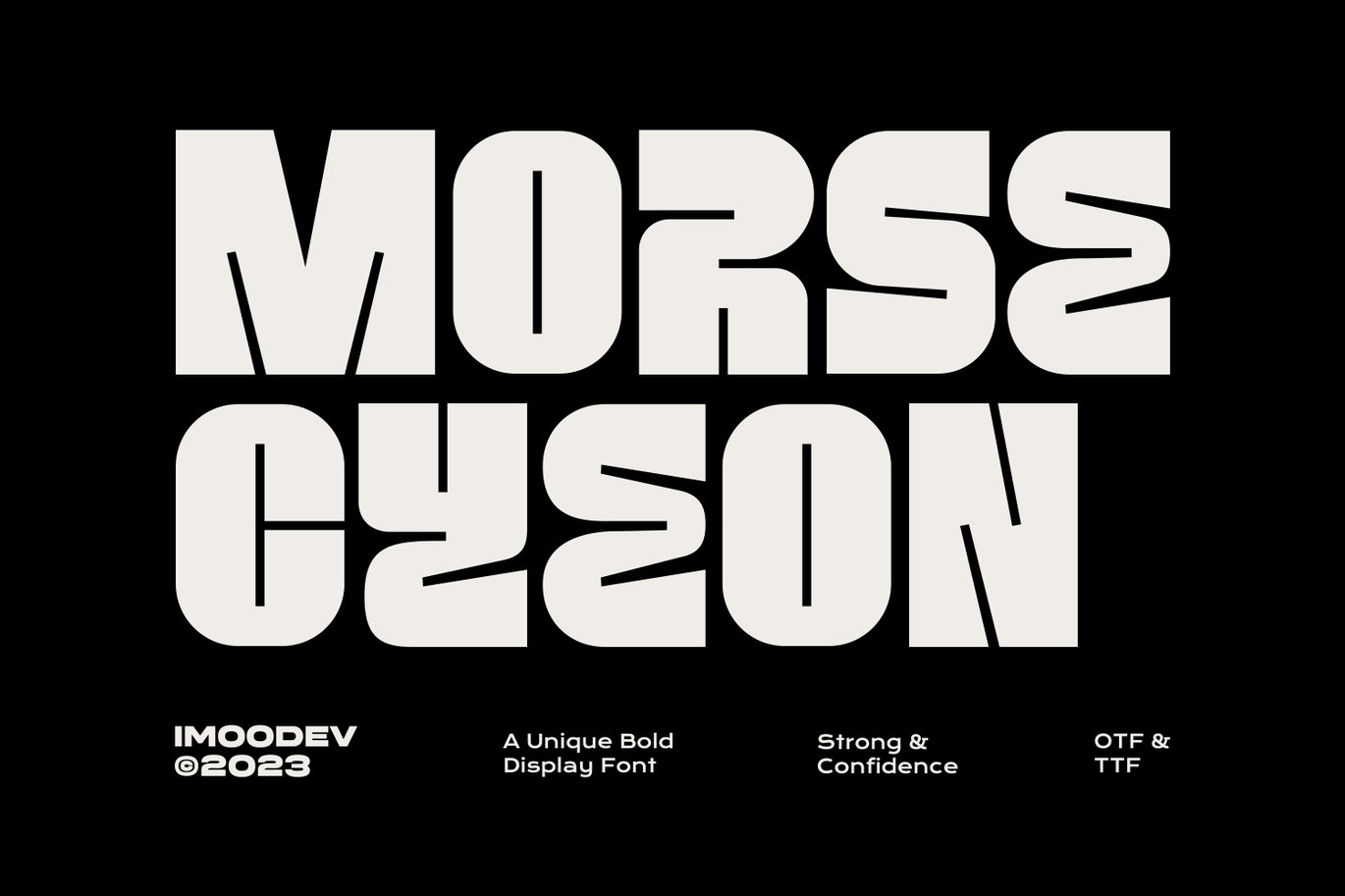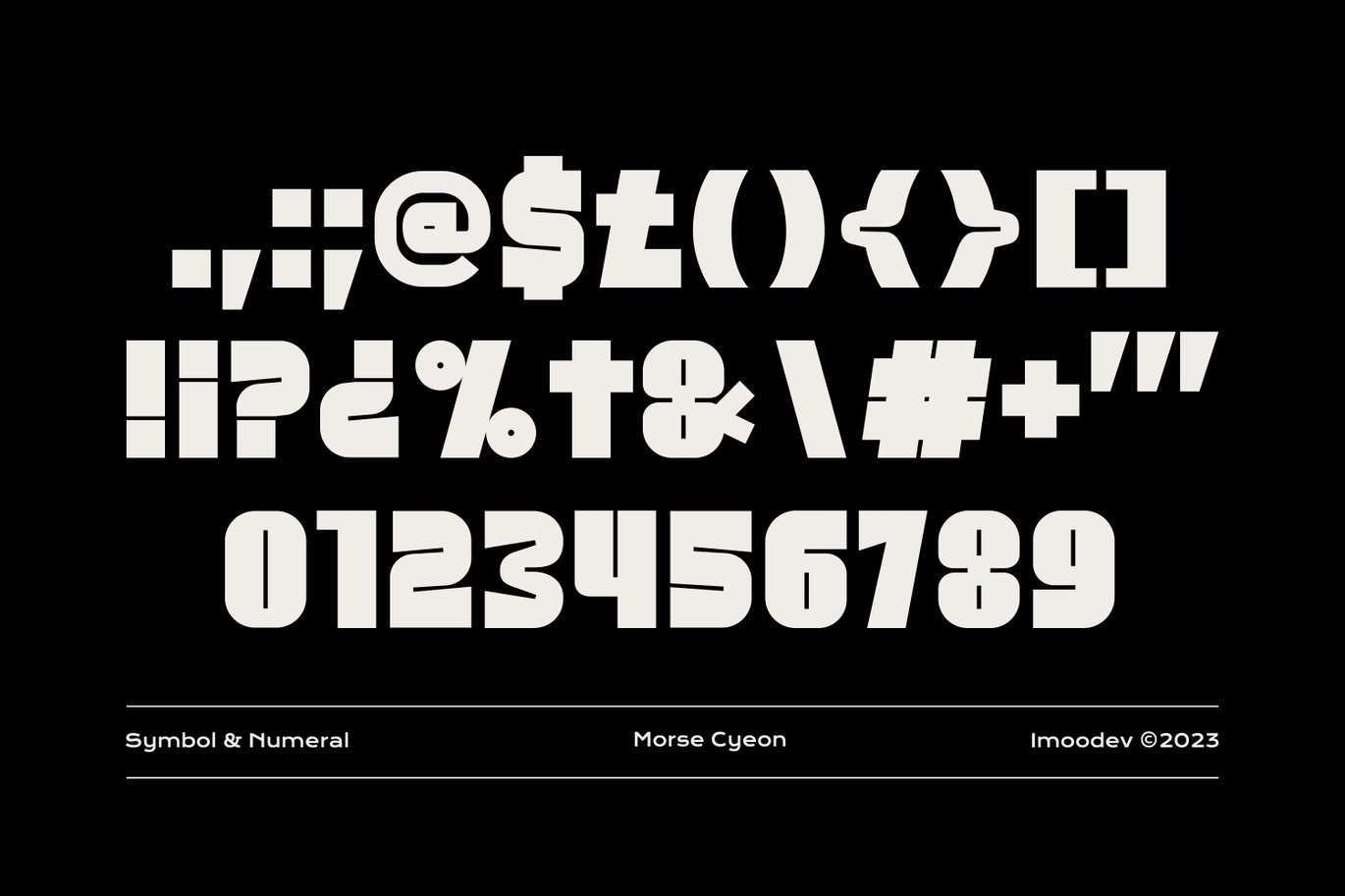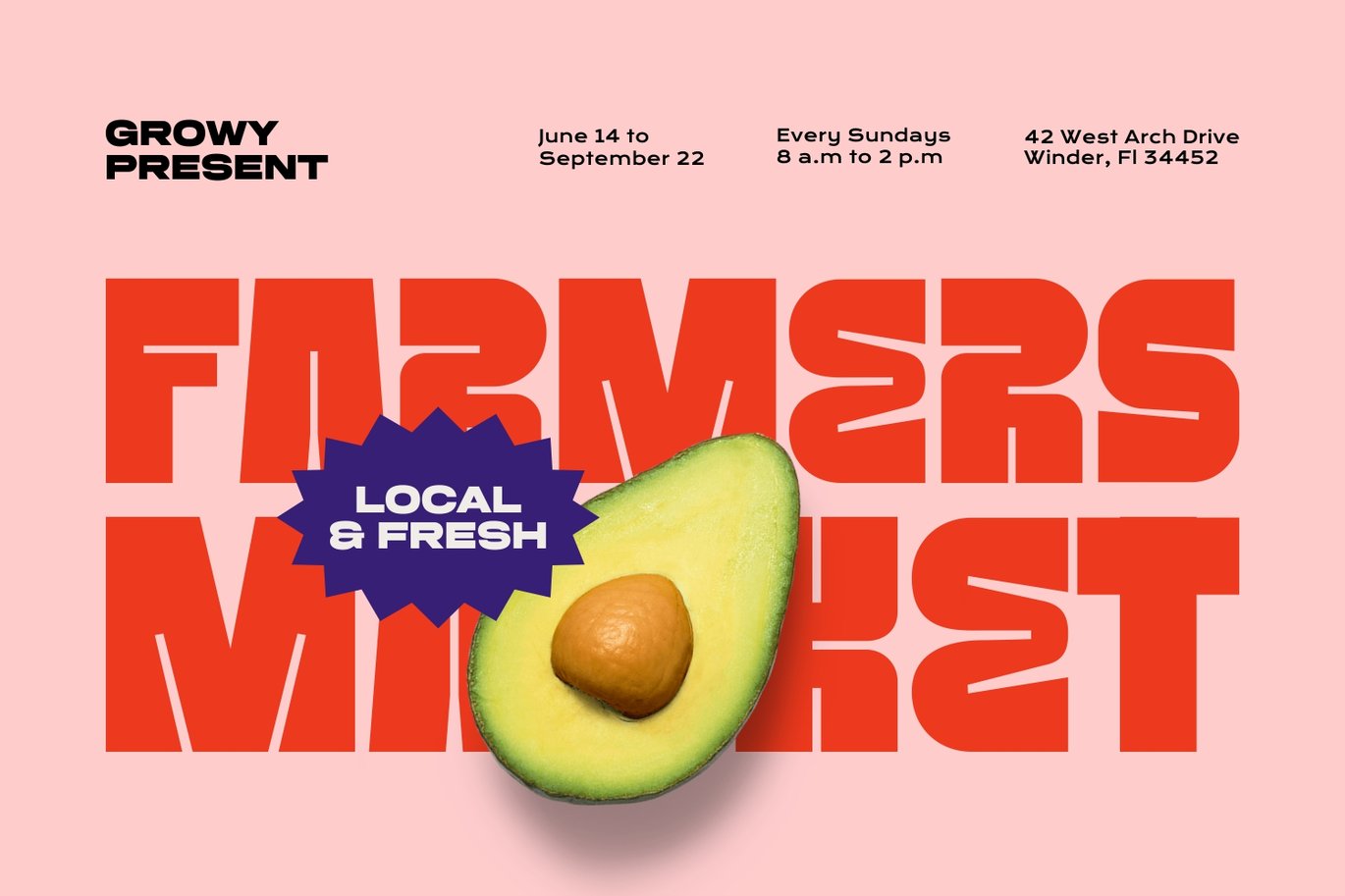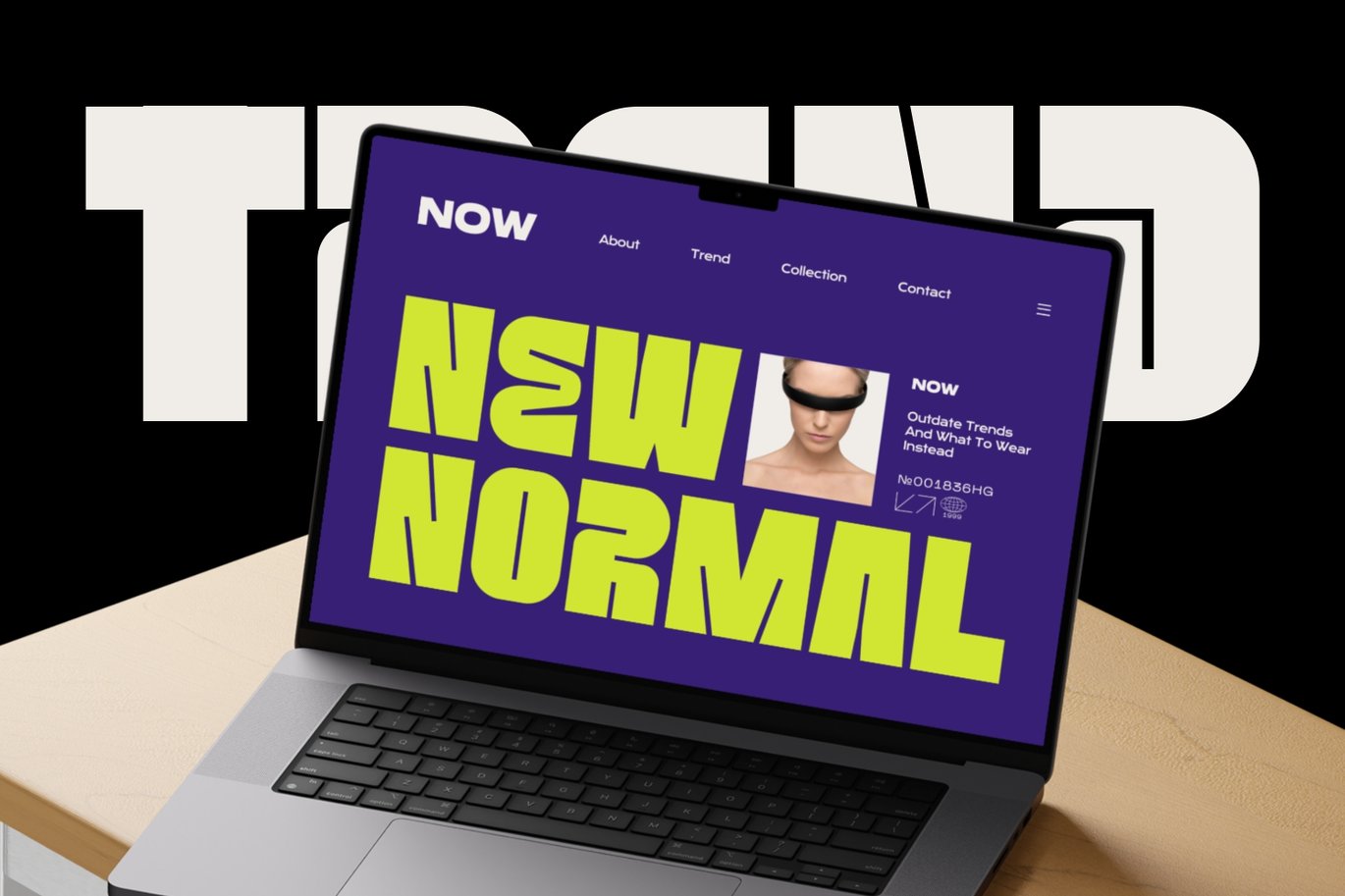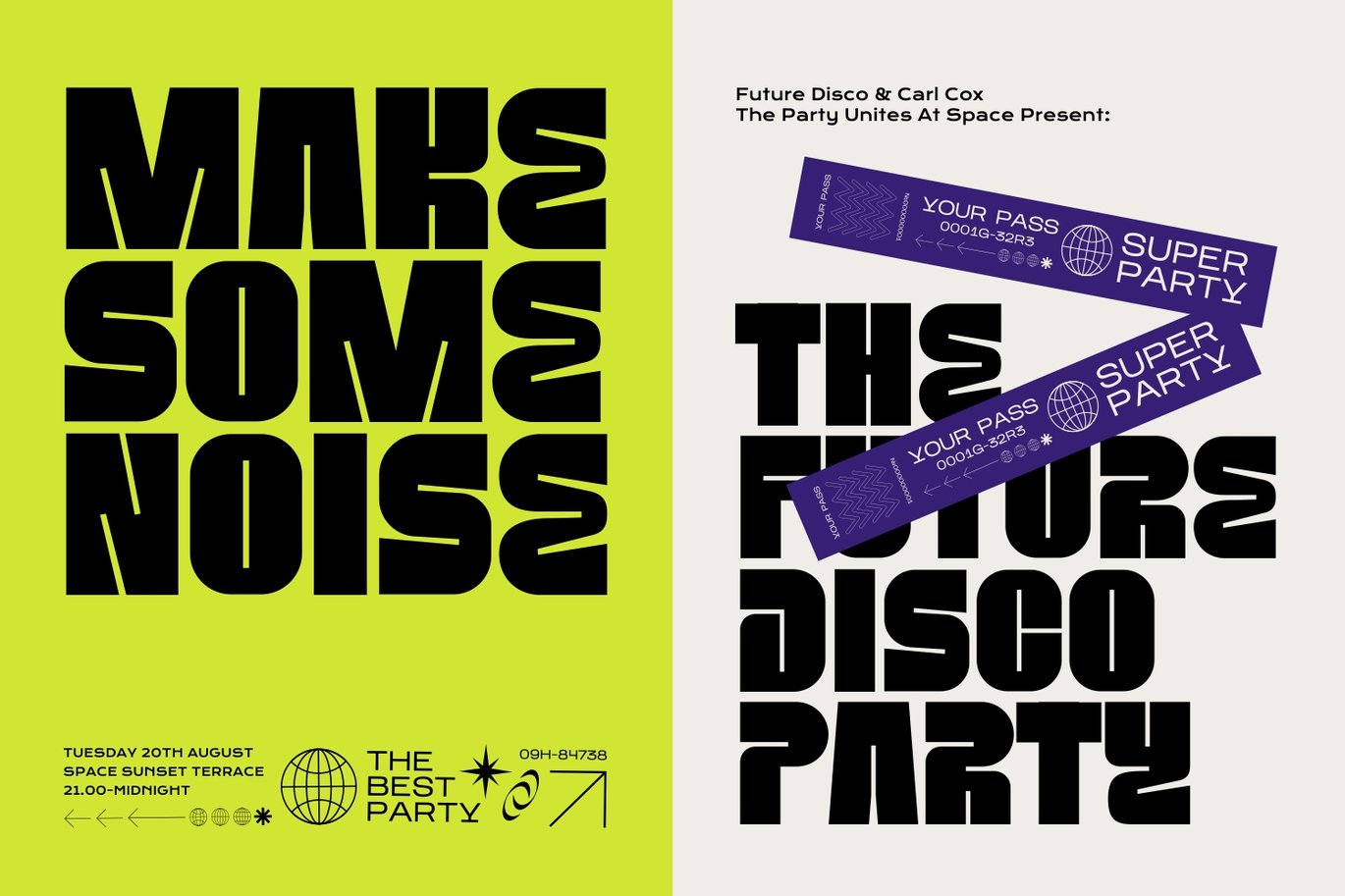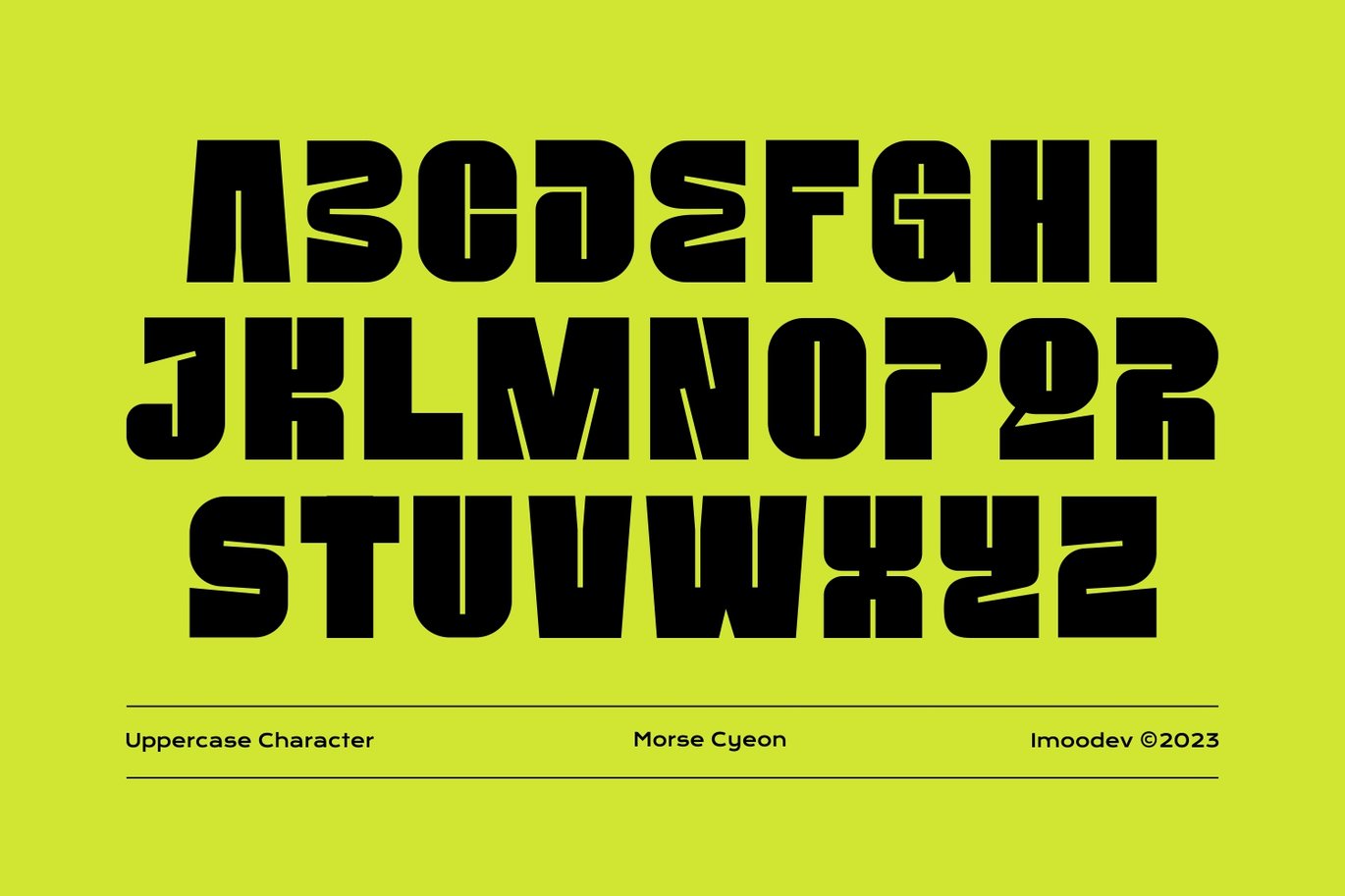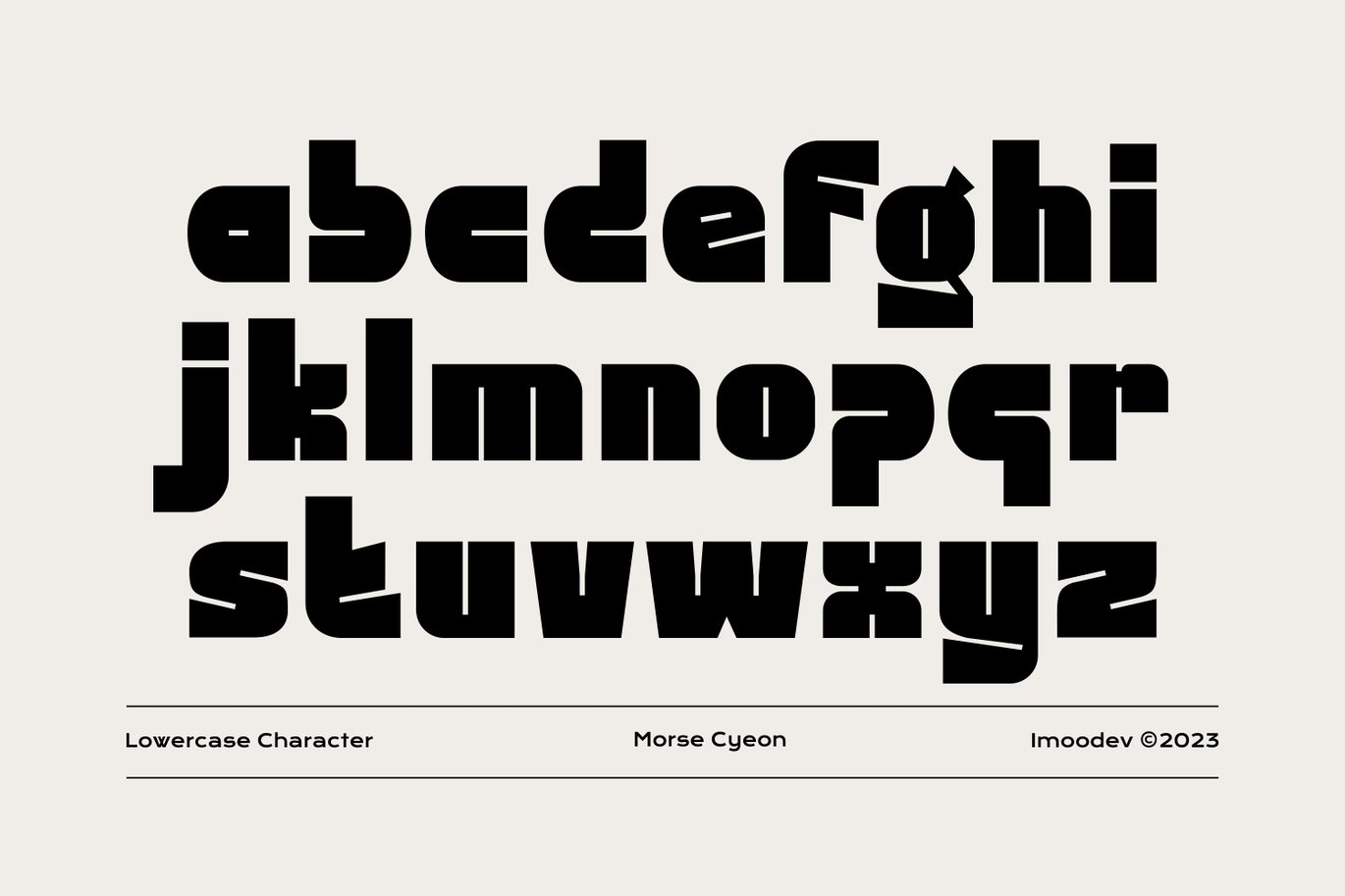
Morse Cyeon – Unique Bold Display Font
Morse Cyeon is a boldness, chunky display font and playfulness. Its charmingly bold design brings an instant touch of modern flair to any project, capturing the essence of the classic psychedelic movements of the 1970s.
The key to Morse Cyeon is its flexibility. You can use Morse Cyeon for packaging design, print or digital media, poster design, logo design, or visual identity design and other designs that require a bold and unique typeface. It adds a touch of sophistication and charm to anything it touches. Morse Cyeon font’s charismatic and adaptable style will let your creativity flow effortlessly.